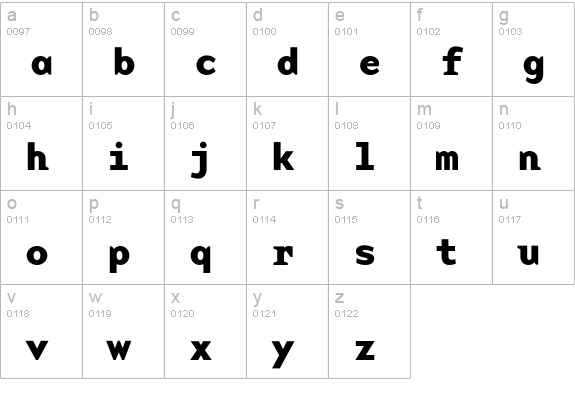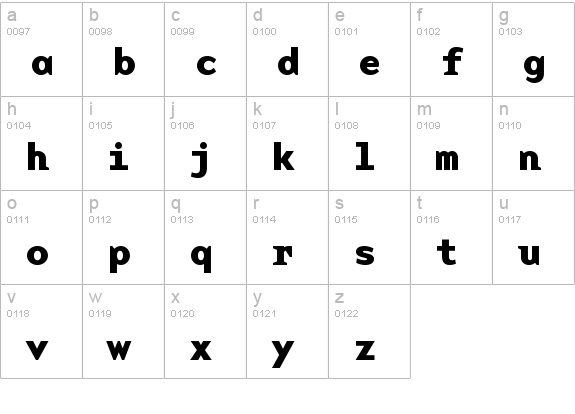
BaseMonoWide-Bold is a strong, high-contrast variant in the BaseMonoWide typeface family \xE2\x80\x94 well suited to headlines, attention-grabbing titles, and strong calls-to-action.
BaseMonoWide-Bold is a modern and bold monospaced font that is perfect for creating impactful designs. With its wide characters and strong presence, this font is ideal for headlines, titles, and any design that requires a bold and commanding typeface. The thick strokes and uniform width of each letter make BaseMonoWide-Bold stand out and grab attention. What makes BaseMonoWide-Bold even more appealing is that it is available for free download at FontsMarket.com. This means that you can easily access and use this striking font in your projects without any cost. Whether you are working on a poster, logo, or website, BaseMonoWide-Bold will add a touch of boldness and professionalism to your designs. Don't miss out on the opportunity to enhance your projects with the bold and eye-catching BaseMonoWide-Bold font. Download it for free today at FontsMarket.com and take your designs to the next level.